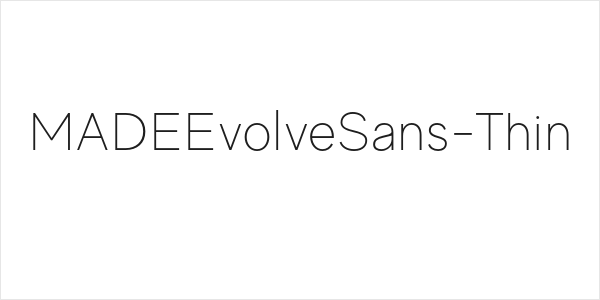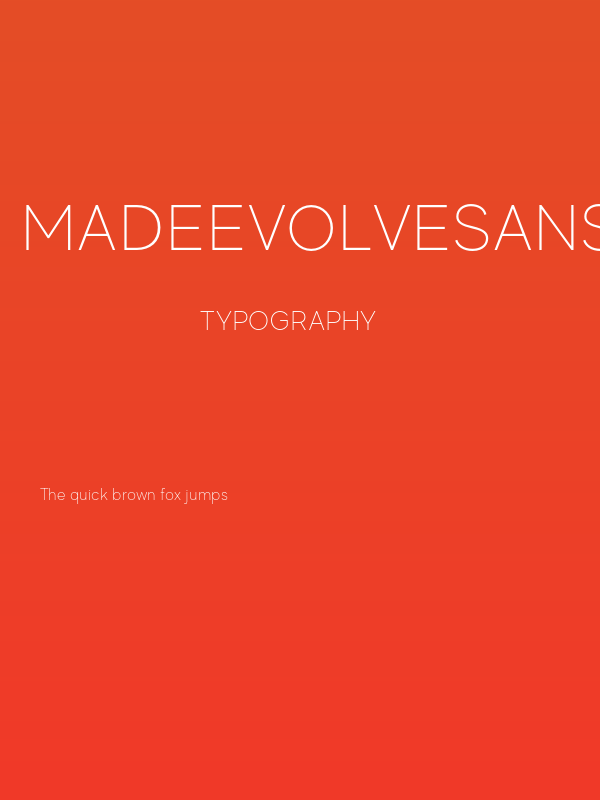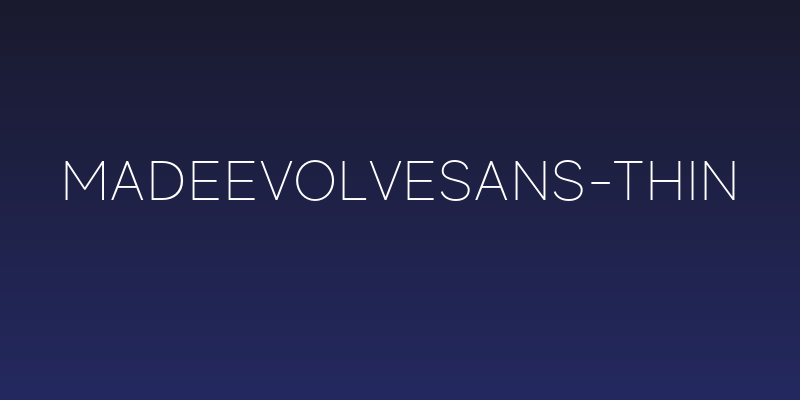
MADEEvolveSans-Thin Font
MADEEvolveSans-Thin Description
This font exhibits a clean and modern sans-serif style, characterized by its thin and uniform stroke width. The design is minimalistic, with a focus on clarity and simplicity, making it highly legible. The uppercase and lowercase letters are well-proportioned, with a consistent height and spacing that enhances readability. The numerals are straightforward and align well with the overall aesthetic, while the special characters maintain the same sleek design. This font is versatile, suitable for both digital and print media, and can be used in various design contexts where a contemporary and elegant look is desired.
| Proposed Projects | Ideal for branding, web design, editorial layouts, and corporate materials. |